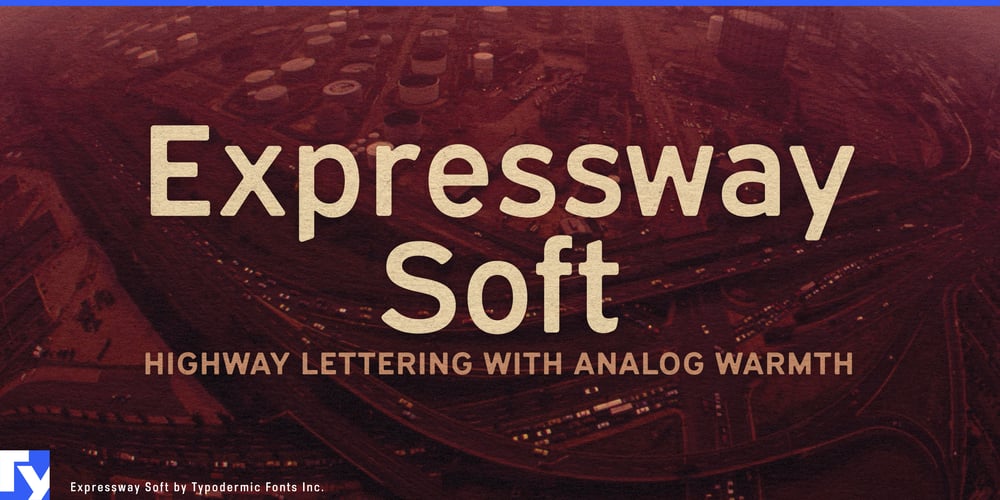
Expressway Soft
Expressway Soft font
Expressway Soft Font Family was designed by Ray Larabie and published by Typodermic. Expressway Soft contains 8 styles and family package options. Shift your designs into high gear with Expressway Soft, a sans-serif typeface family that smooths out the edges of automotive typography. Rooted in the iconic FHWA Series of Standard Alphabets, this font family doesn’t just follow the road—it paves new design pathways.Expressway Soft takes the utilitarian clarity of highway signage and gives it a gentle polish. Those soft, rounded corners aren’t just aesthetically pleasing—they evoke the feeling of a leisurely drive, the wind in your hair, and endless possibilities on the horizon. It’s the typographic equivalent of comfort and control behind the wheel. With twelve distinct styles—six weights plus their italic counterparts—Expressway Soft offers a full tank of design options. From sleek, lightweight designs that whisper sophistication to bold, heavy styles that demand attention, this typeface family is ready for any journey your project might take.Expressway Soft doesn’t just look good; it works hard. Old-style numerals bring a touch of refinement to body text, while monospaced numerals, currency symbols, and mathematical operators line up perfectly for financial reports, price lists, and data-heavy designs. It’s equally at home on a billboard overlooking a busy freeway or navigating the intricacies of a user interface. This typeface’s global passport is impressive. Supporting an extensive range of Latin-based European languages, Vietnamese, Greek, and most Cyrillic-based writing systems, Expressway Soft is ready to guide your message across borders and cultures. From the autobahns of Germany to the bustling streets of Hanoi, from the wide boulevards of Moscow to the coastal roads of Greece, Expressway Soft speaks the international language of clear, approachable design.Expressway Soft isn’t constrained by the rigid rules of road signage—it’s liberated by them. It takes the best of utilitarian design and infuses it with a creative spirit, giving you the freedom to explore new design territories while maintaining a connection to a visual language understood around the world.So, when your project needs to merge the familiar with the fresh, when you want to signal a new direction while keeping your audience oriented, turn to Expressway Soft.